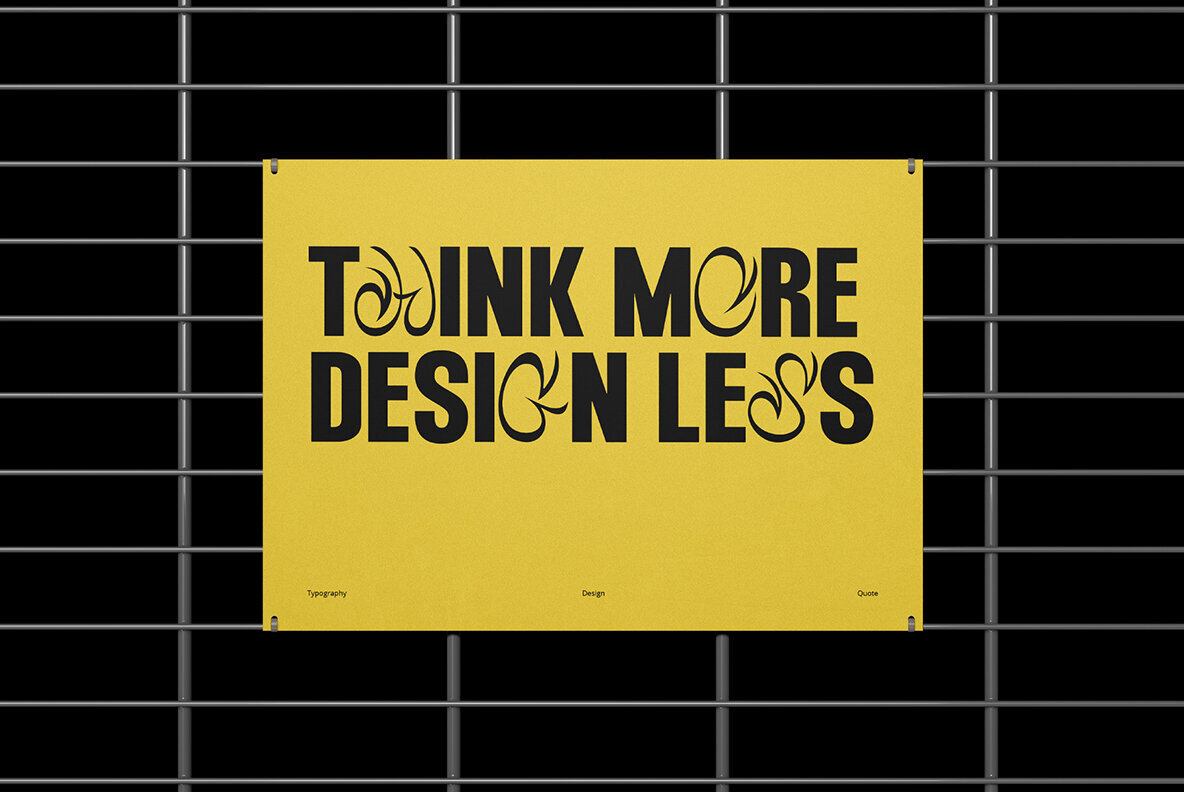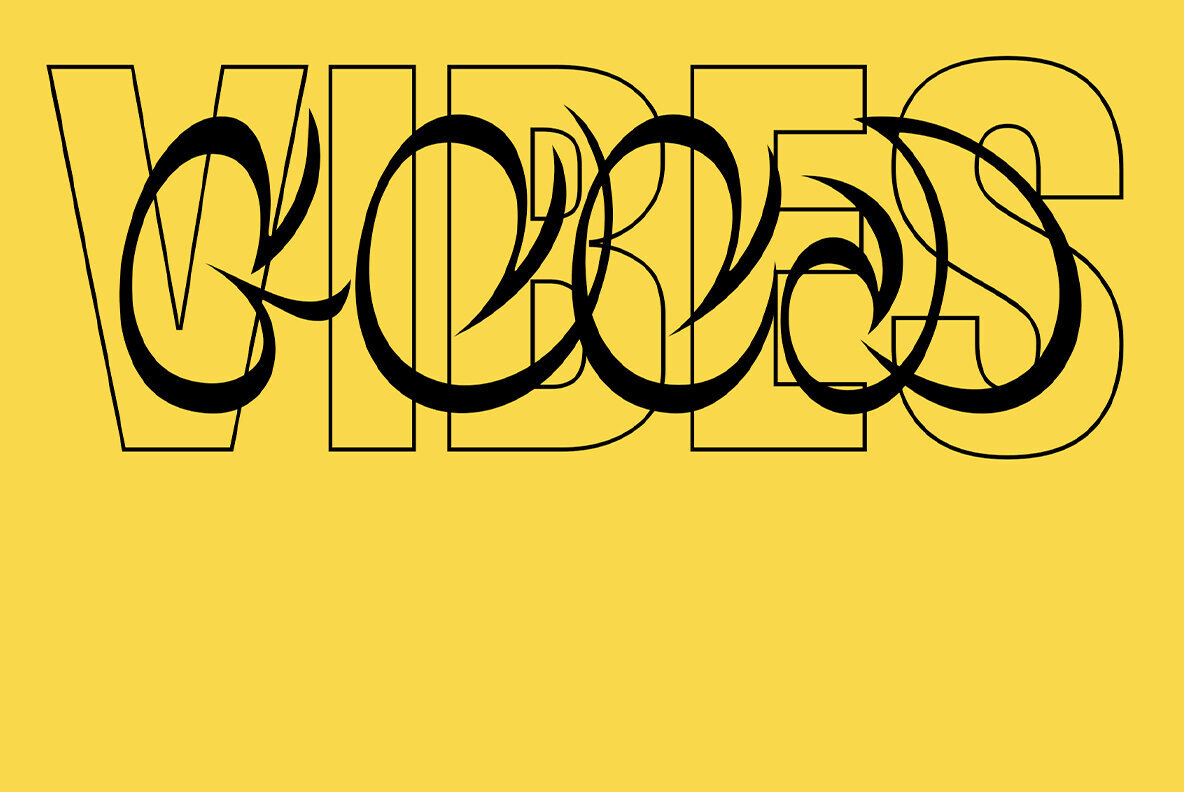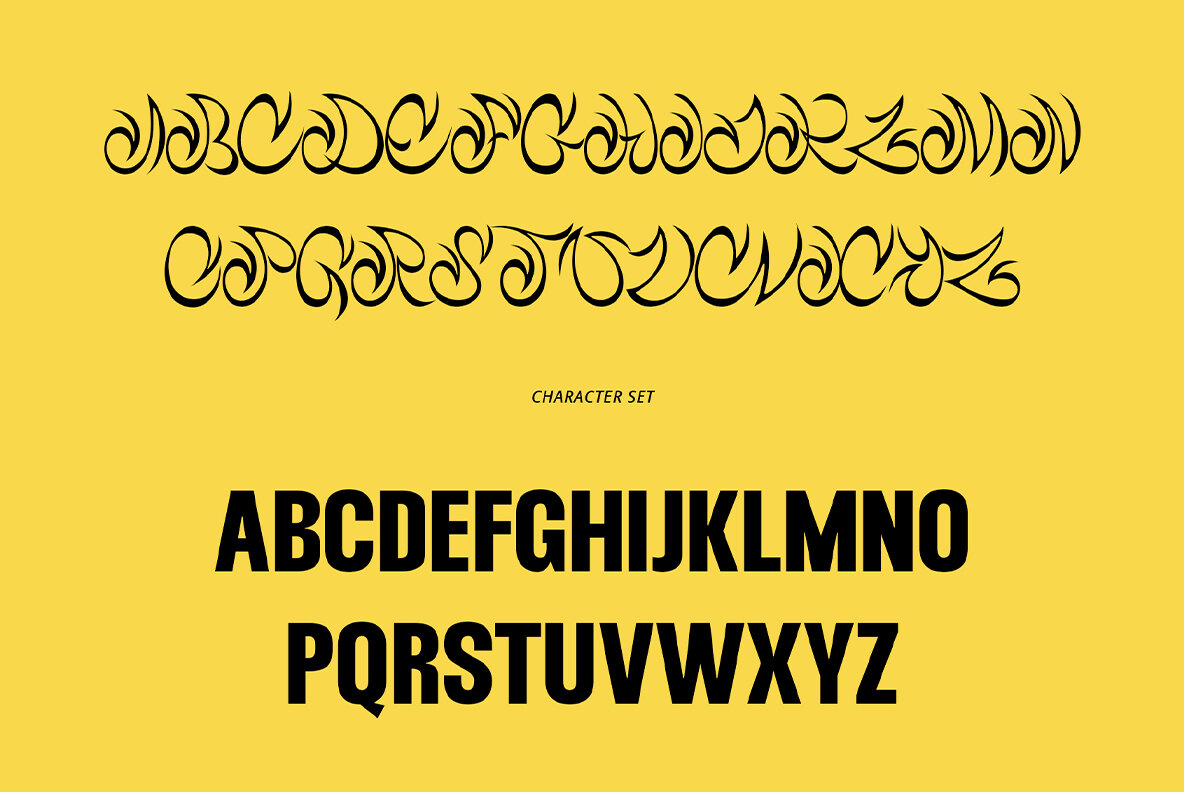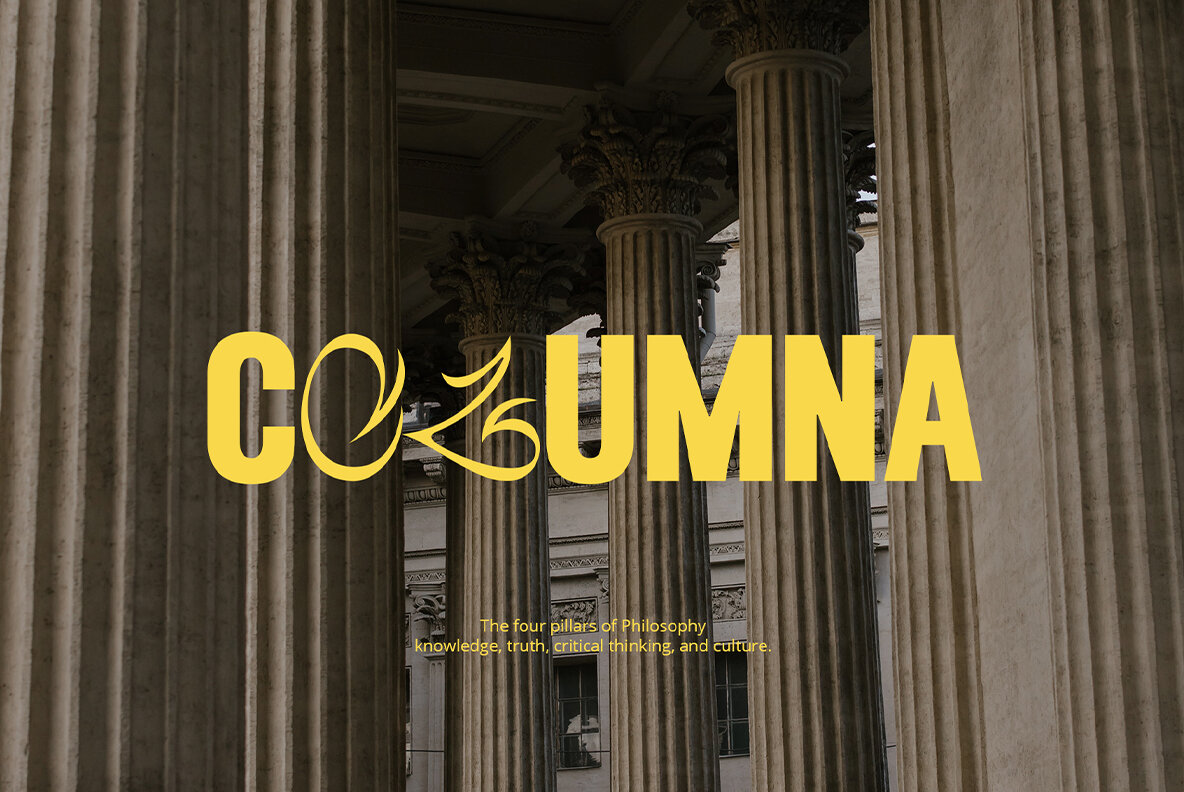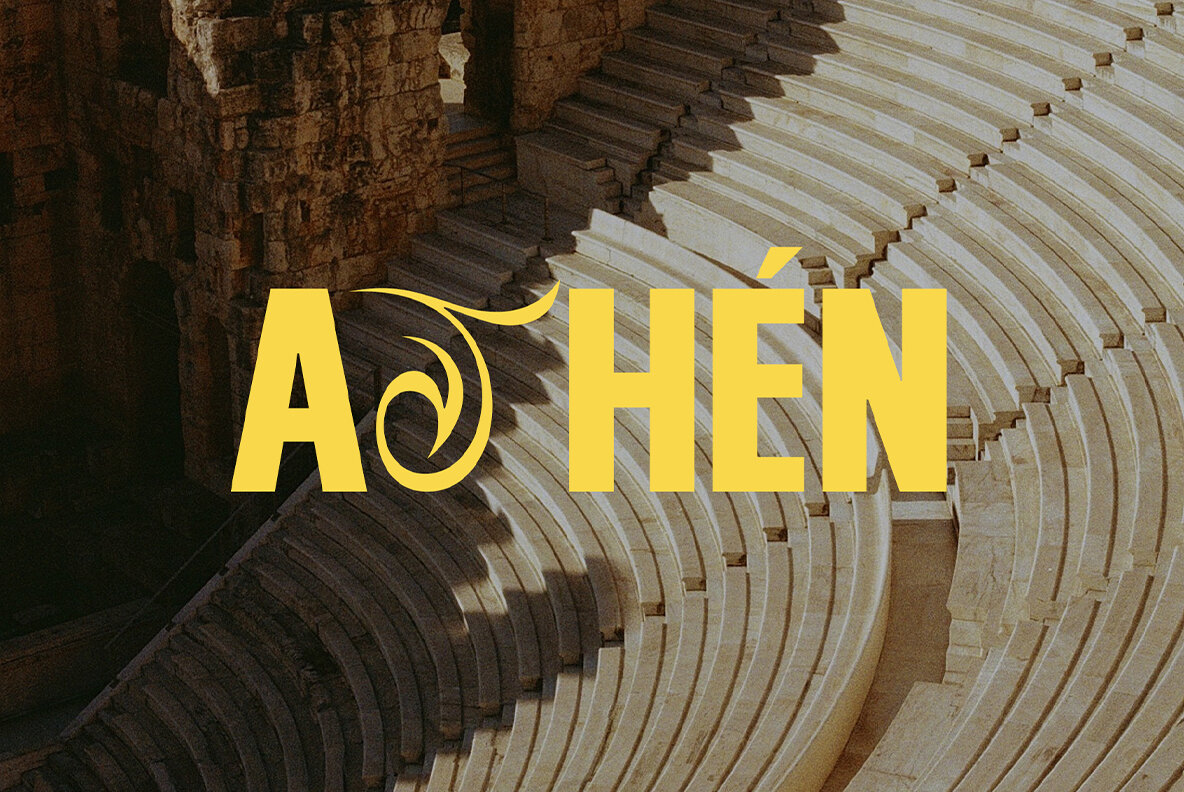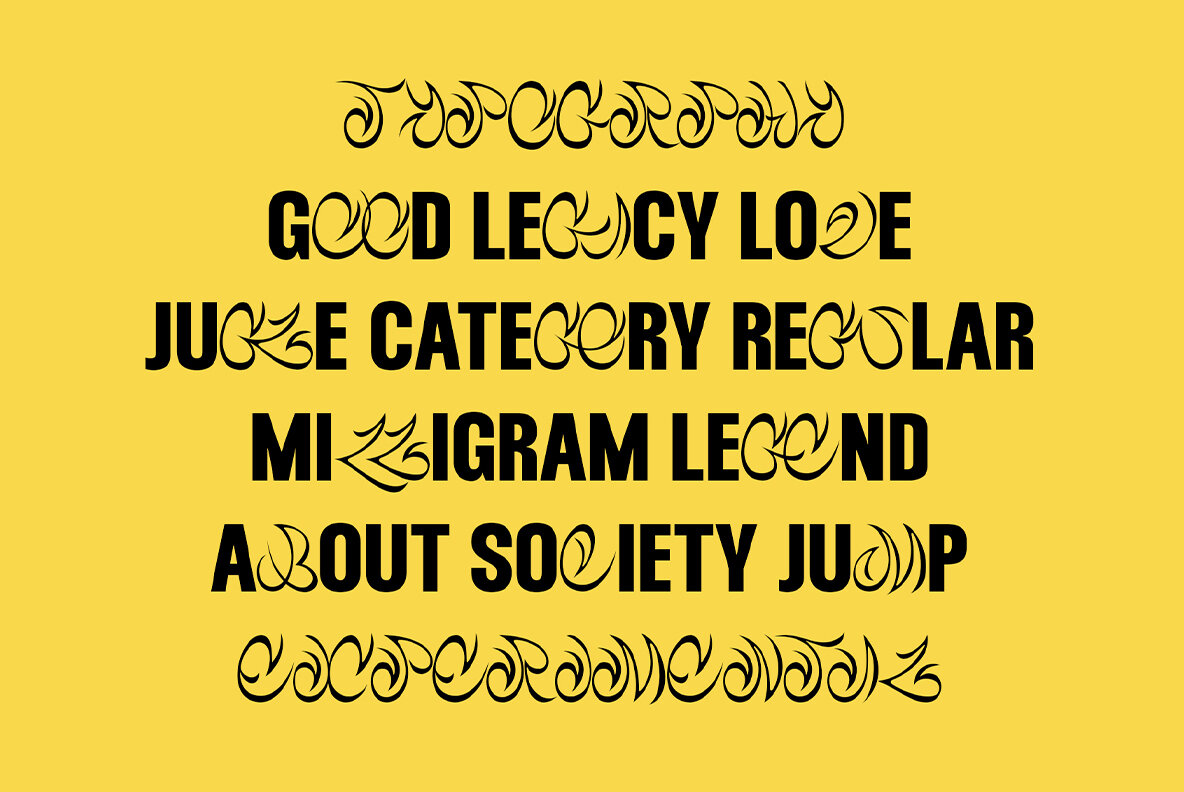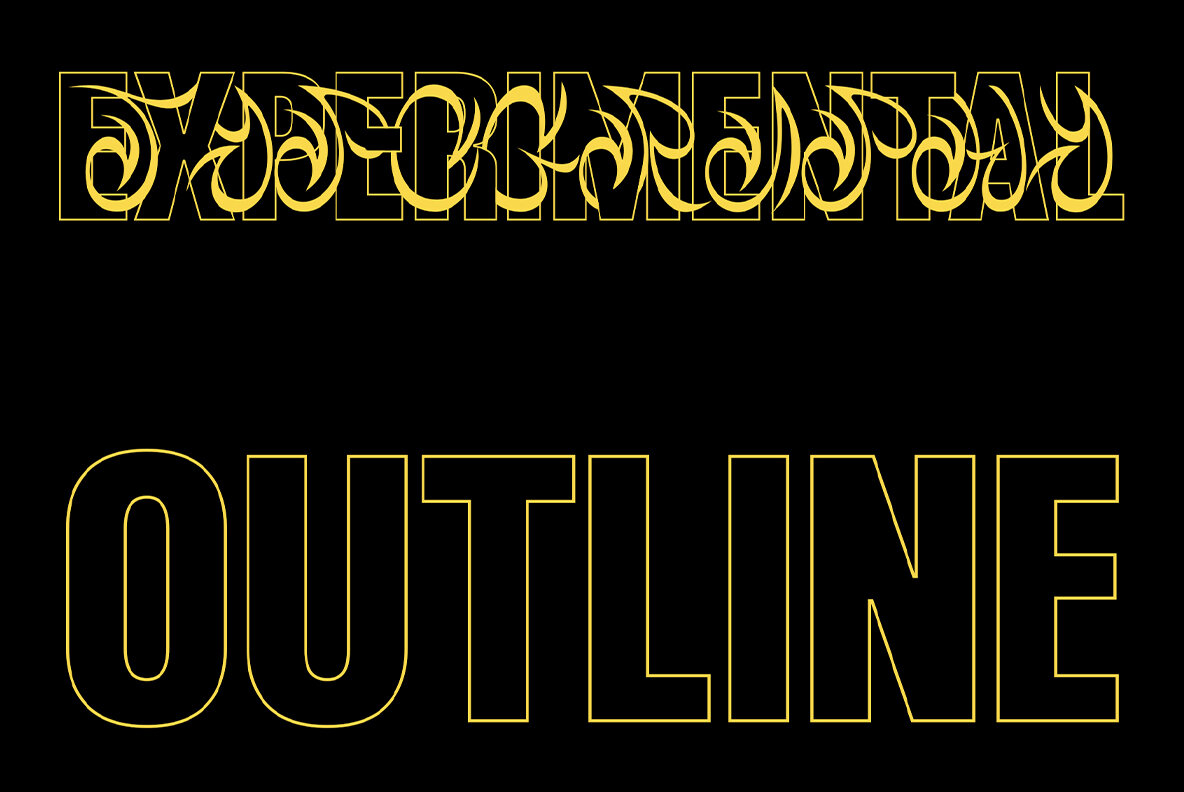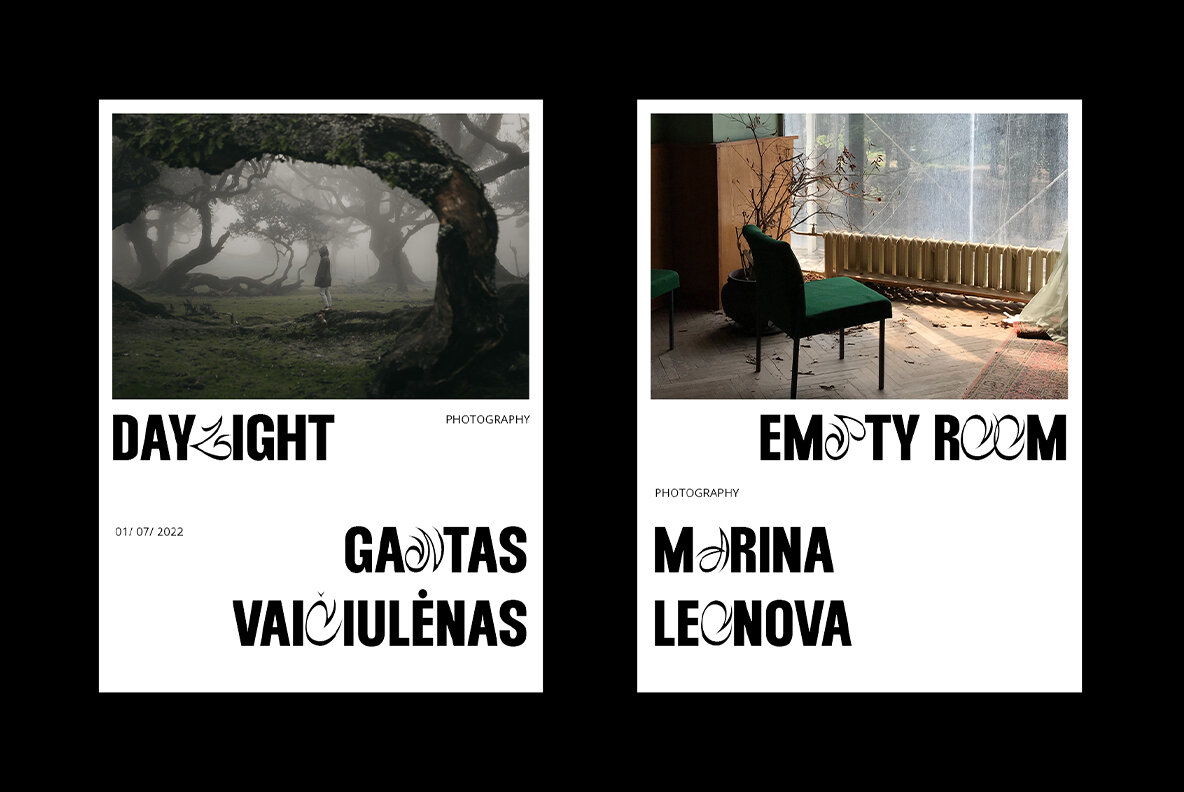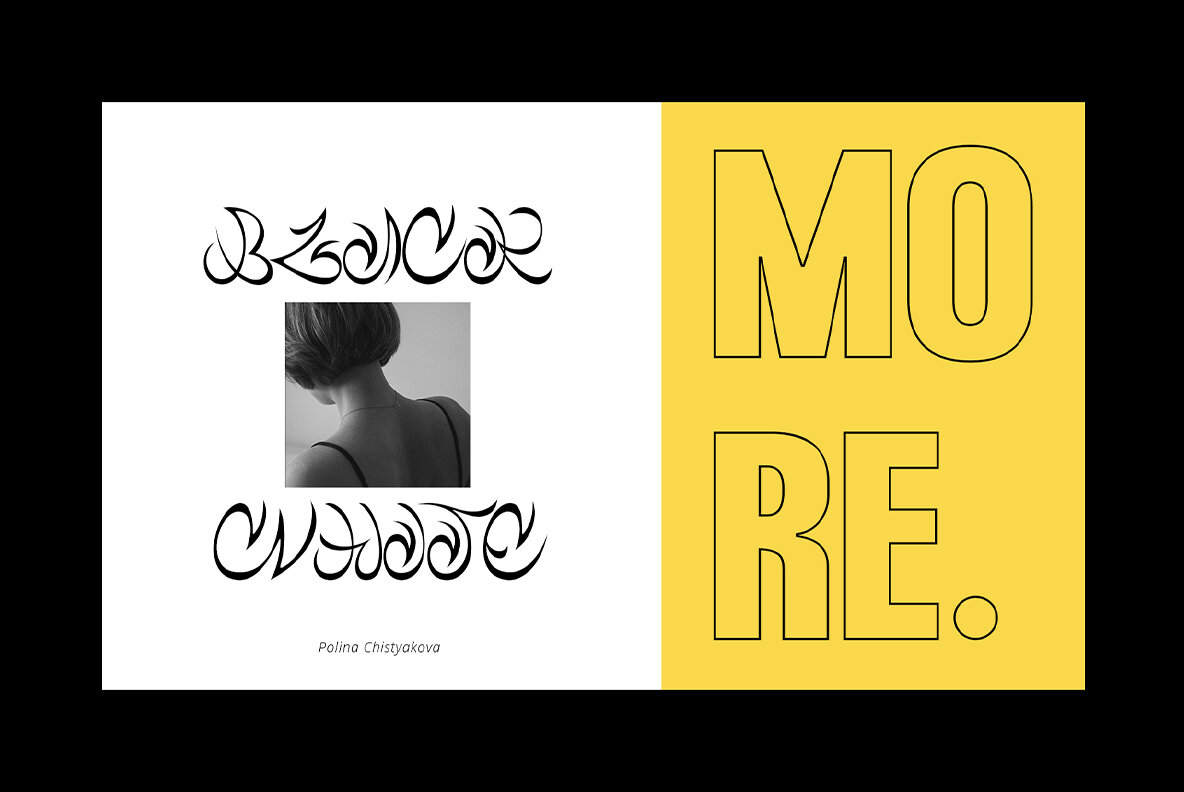
ED Old Webs Font
ED Old Webs Regular
ED Old Webs Outline
Old Webs is an experimental font that combines 2 very different font styles. The first styled font is inspired by the Hawaiian tattoo motif which is shaped like a wave, and sharp, while the second styled font is a sans font which has a clean and modern look.
The combination of both styles creates a unique combination. and this font also has 2 views: plain and outline, to make it easier to be creative with this font. his font has several features such as ligatures, alternative characters, and multi-language support.